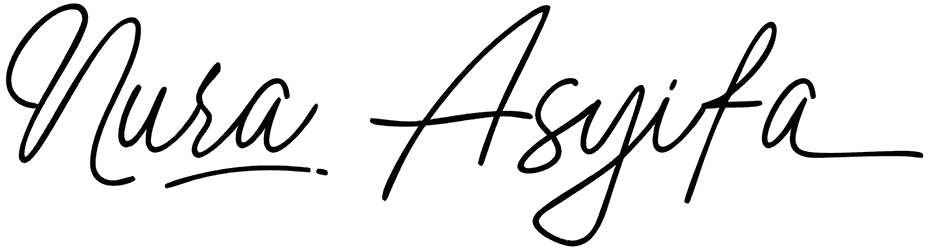
Nura Asyifa Font
To create unique branding for a fashion company or a beautiful book cover for a novel, this neon font can be impressive for you. A-Z characters are available, and you can use them for different modern and classic designs. Nura Asyifa font is capable of giving a chic and smooth vibe to your intended text.